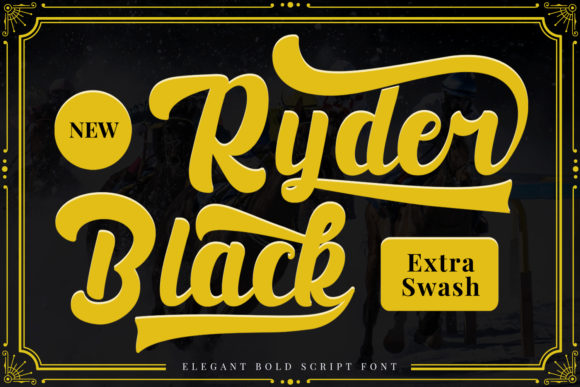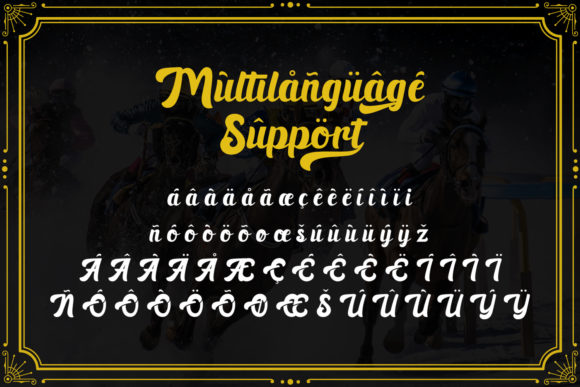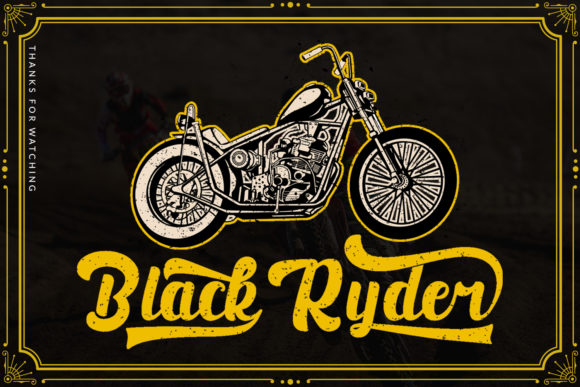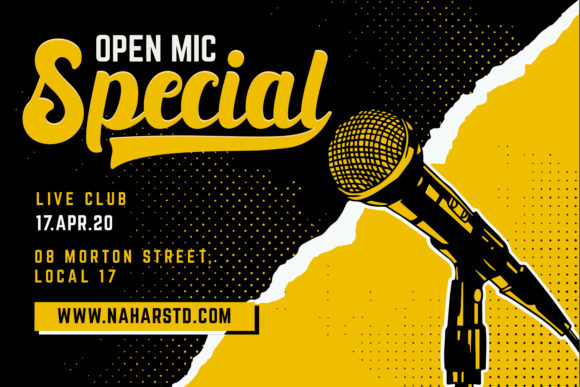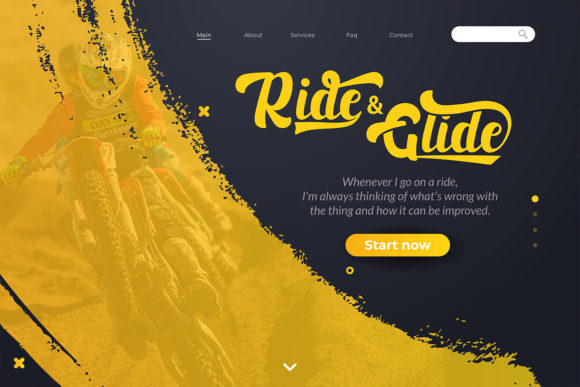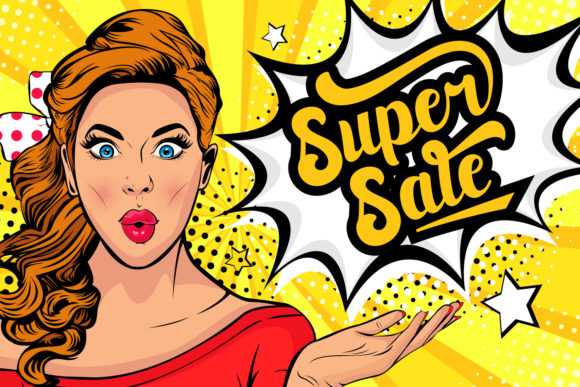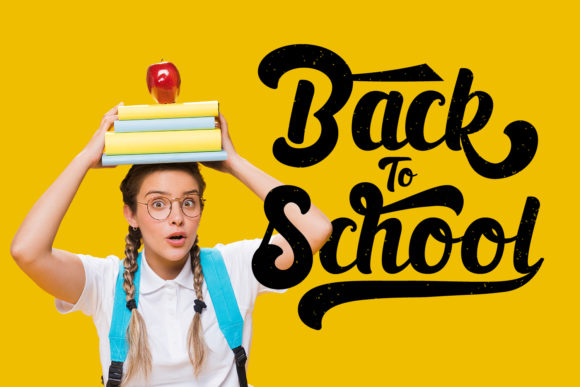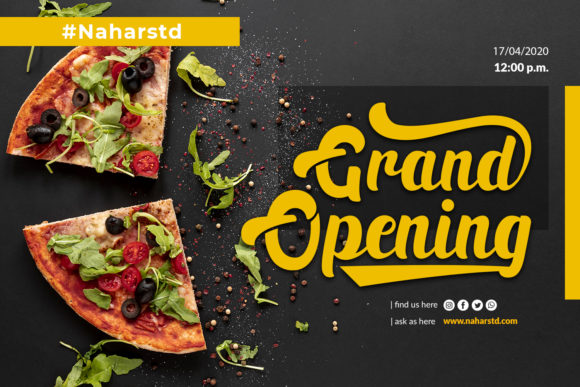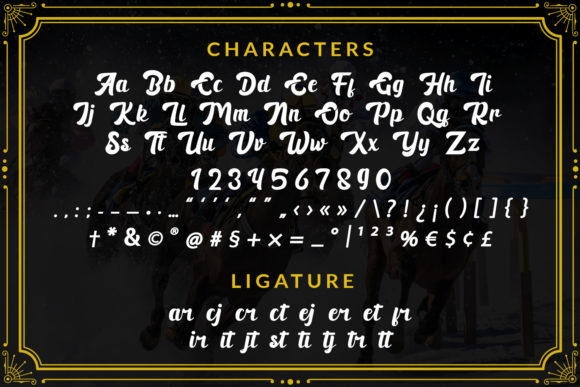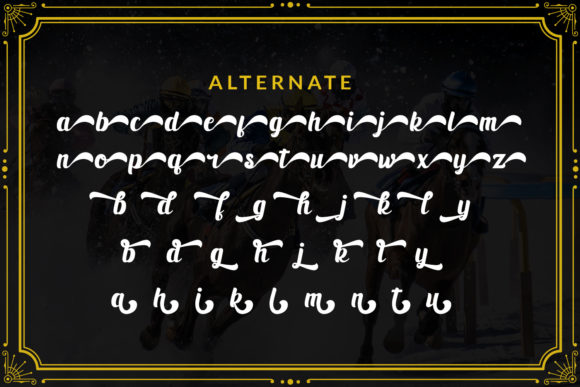
Black Ryder Font
About Black Ryder Font
Black Ryder is a bold script font with smooth curves that is just what you need for your next projects. Perfect for branding, logo design, posters, magazine covers and other design projects.